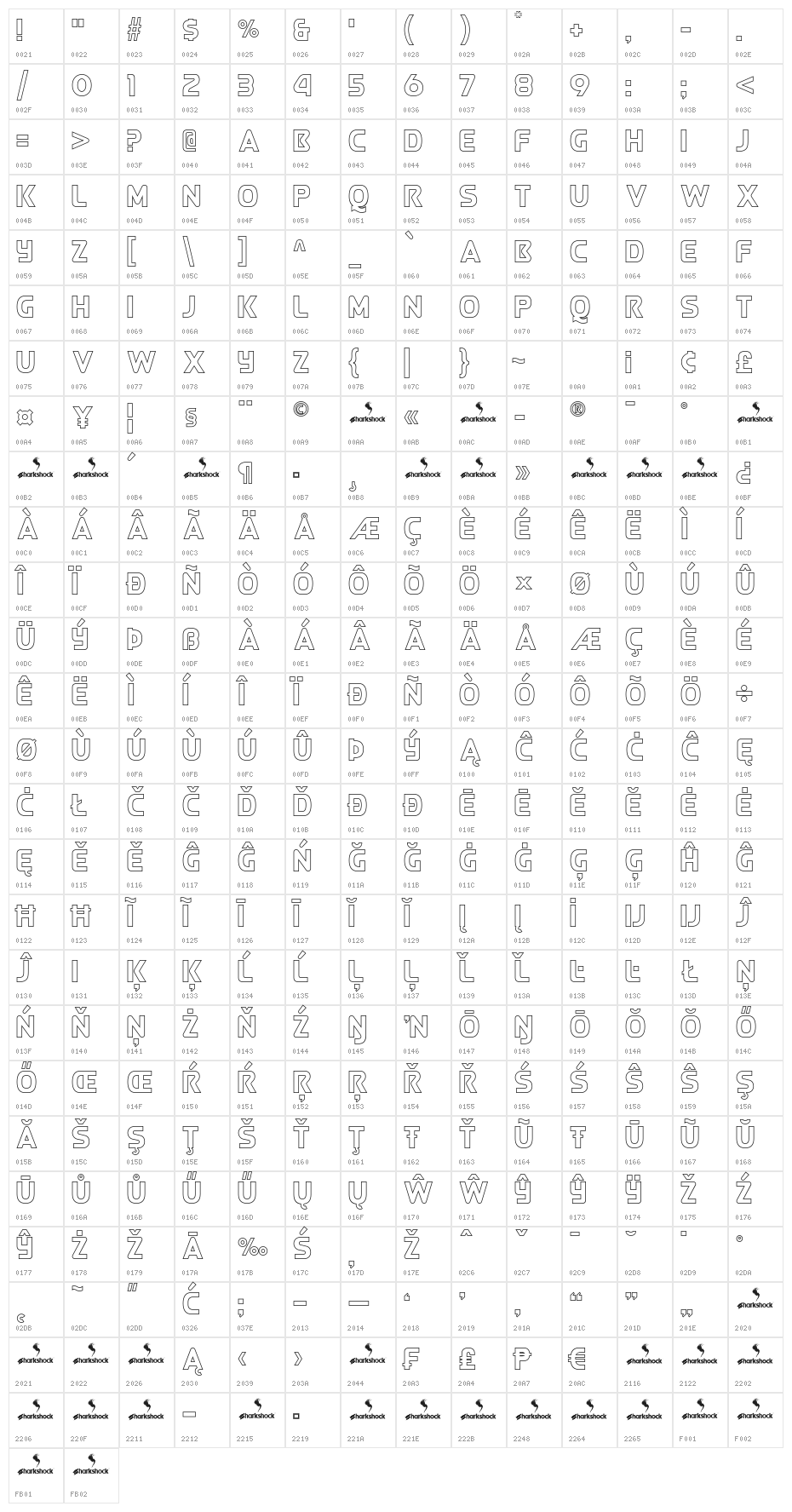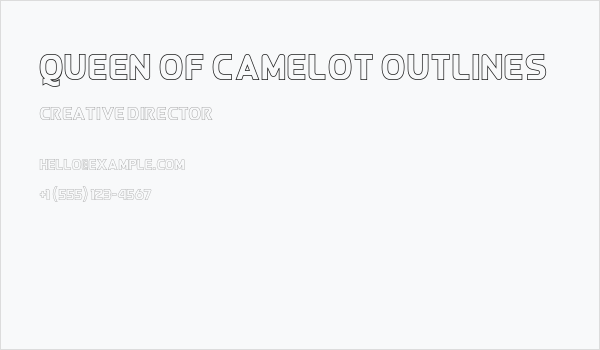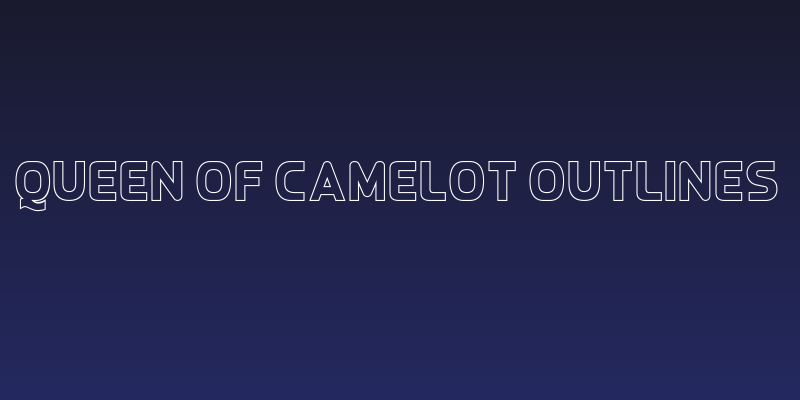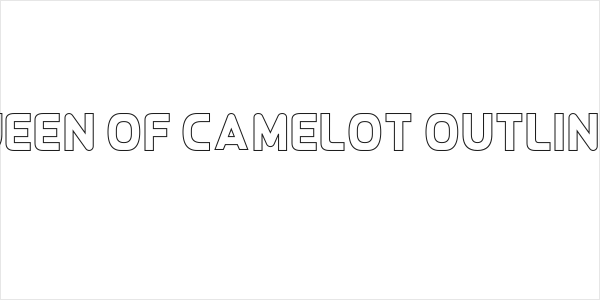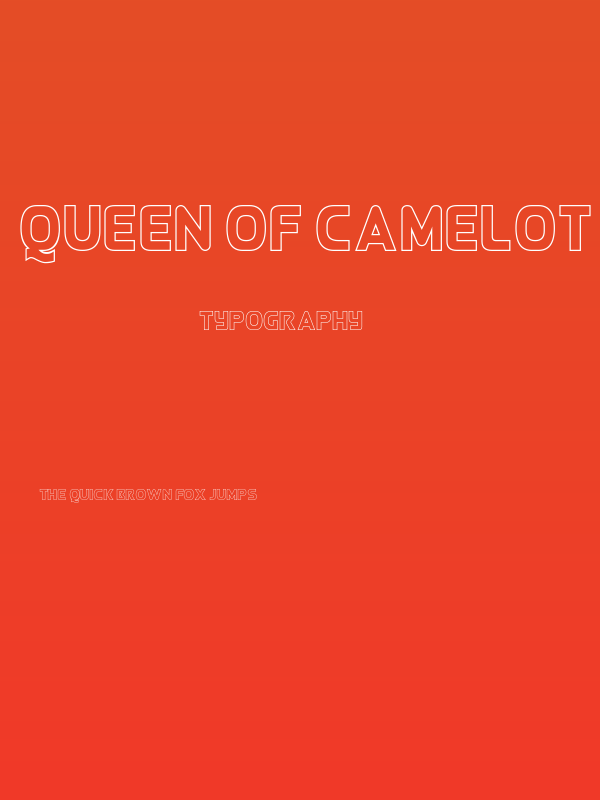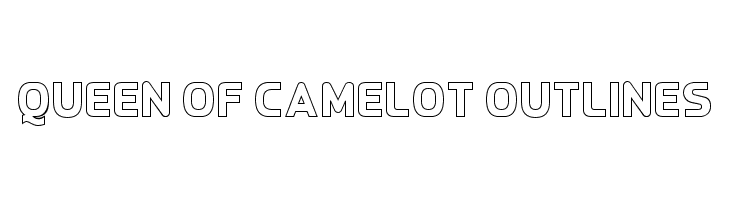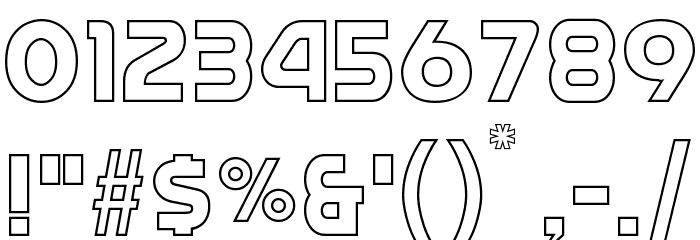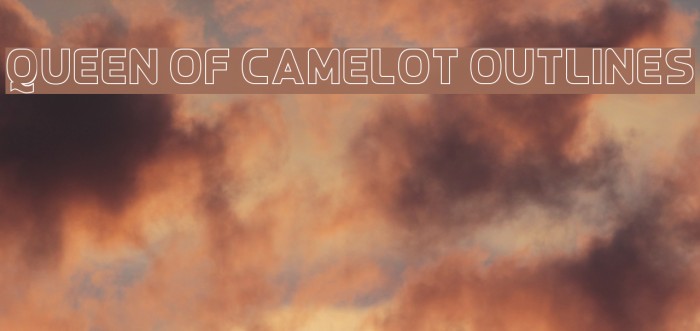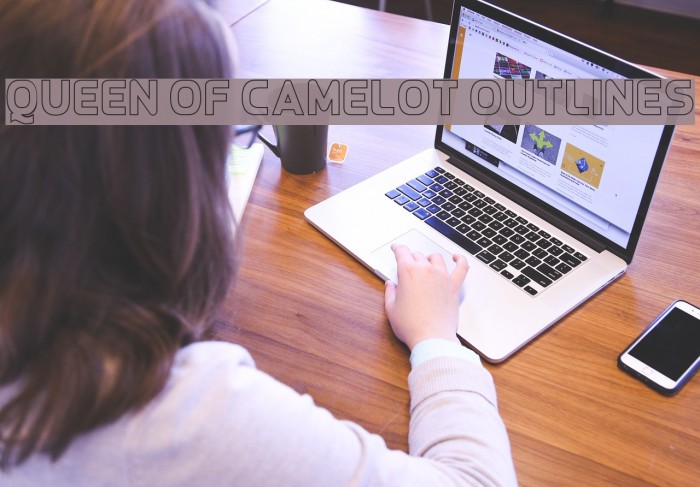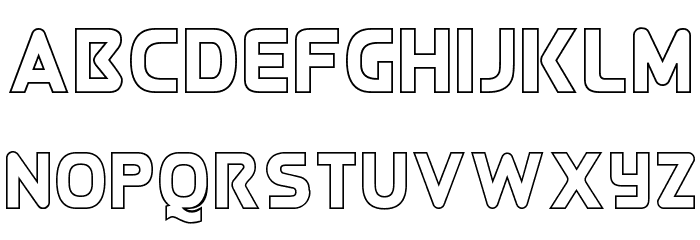
Queen of Camelot Outlines Font
Queen of Camelot Outlines Description
This font features a bold, geometric outline style with a modern and futuristic aesthetic. The characters are constructed with clean, sharp lines and a uniform stroke width, creating a sense of precision and clarity. The uppercase and lowercase letters maintain a consistent height, while the numerals and special characters complement the overall design. The font's outline nature gives it a distinctive, airy appearance, making it suitable for creative and eye-catching designs. Its structured formality is balanced by the open spaces within each character, providing a unique visual appeal.